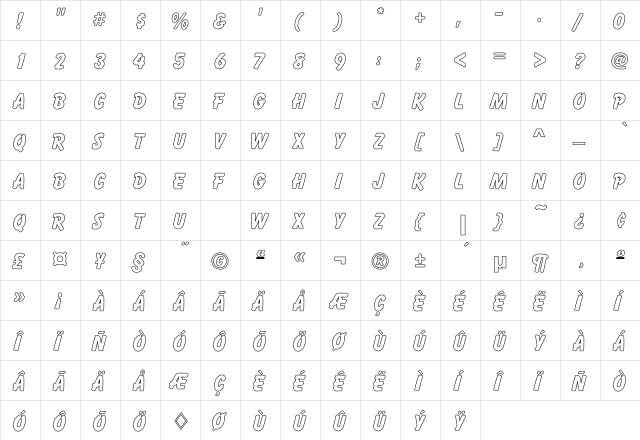
Alameda Hollow Cond Regular
Design Context for Alameda Hollow Cond Typeface
Alameda Hollow Cond is a composed and adaptable typeface that performs quietly and consistently across a wide range of design contexts. Its narrow stance lets it pack a punch even in space-constrained designs.